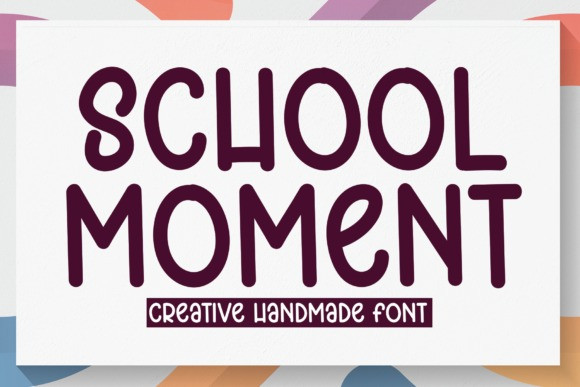
School Moment Font
School Moment Font is a graceful and playful handwritten font. Fall in love with its ravishing style, and use it to create beautiful designs for kids, and not only.